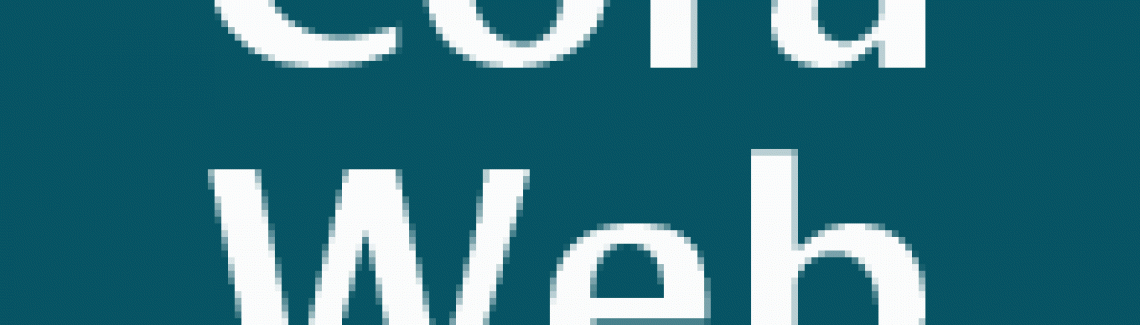
Cora featured in CreativePro
CreativePro.com has adapted our font Cora as their default webfont.
The successfull website CreativePro.com, a vast forum with topics related to the creative community, decided to take the jump and present their content with our webfont Cora. The new service of Extensis, WebINK, makes the implementation easy and fast. Cora, designed by Bart Blubaugh, is a sans serif, with an experimental bent, offering a large x-height, some contrast of stroke weight, and capitals inspired by classical lettering. Its proportions and structure lend themselves to be clearly legible on the screen.